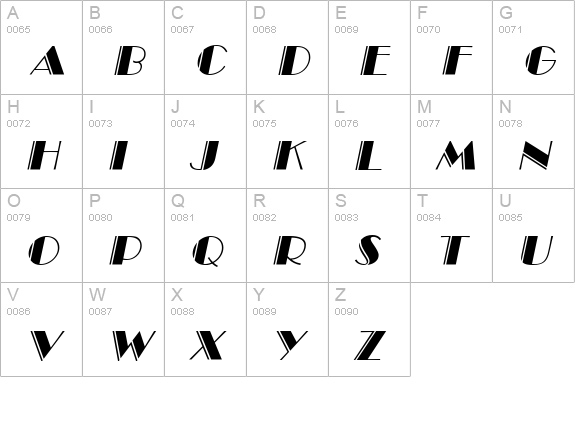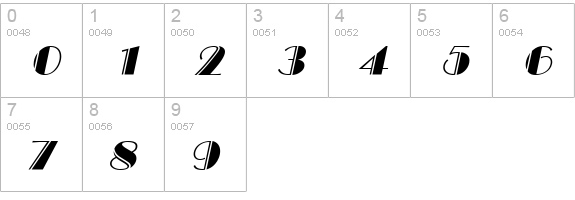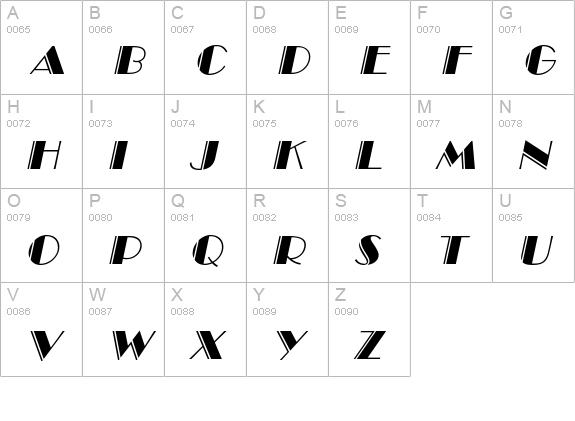
Invite Engraved SF Italic Font Details
Invite Engraved SF Italic is a distinctive, italic variant in the Invite typeface family \xE2\x80\x94 well suited to design and typography projects.
Invite Engraved SF Italic is a stunning and sophisticated font that exudes elegance and refinement. With its delicate and graceful strokes, this font adds a touch of class to any design project. The italicized style of Invite Engraved SF enhances its sleek and stylish appearance, making it perfect for creating eye-catching headlines, logos, invitations, and more. What sets Invite Engraved SF Italic apart is that it is not only a visually appealing font, but it is also freely available to download at FontsMarket.com. This means that designers, creatives, and enthusiasts alike can access this beautiful font at no cost. Whether you are designing a wedding invitation, a luxury brand logo, or a magazine spread, Invite Engraved SF Italic will elevate your project to new heights. Its intricate details and refined aesthetics make it ideal for adding a touch of sophistication to any design. So why wait? Download Invite Engraved SF Italic for free at FontsMarket.com and unlock the potential of this exquisite font for your next creative endeavor.